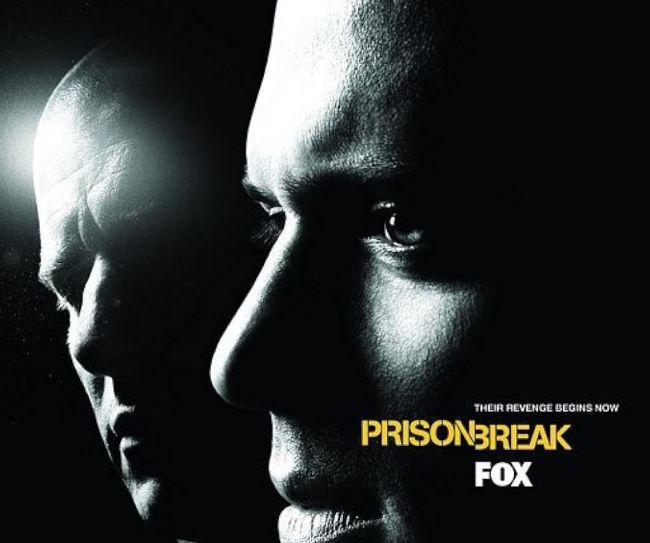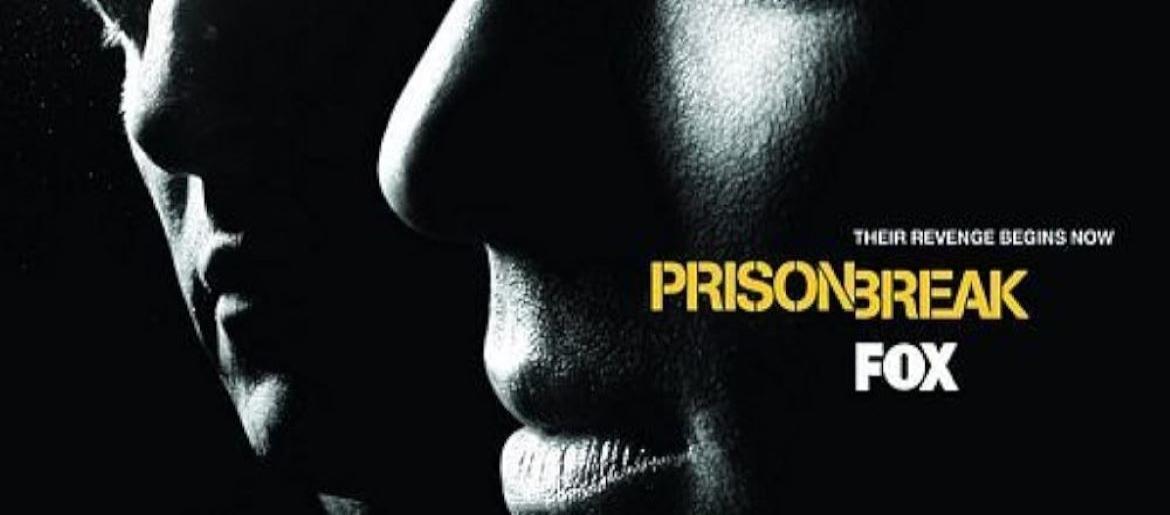
Prison Break Font
The Prison Break font carries a raw, industrial energy that mirrors the series’ tension-filled atmosphere. Its bold, block-style lettering often looks weathered or stamped, giving the impression of concrete walls, prison gates, and escape plans scribbled in secrecy. Unlike flashy or decorative typefaces, the Prison Break font feels grounded and utilitarian, reflecting the gritty reality of life behind bars. It’s the kind of font that communicates urgency, resilience, and a constant fight for freedom.
For designers, the Prison Break font works perfectly in projects that need to channel suspense, toughness, or rebellion. Its rugged look makes it ideal for posters, thriller-themed graphics, or anything aiming to capture the feeling of confinement and struggle. The Prison Break font doesn’t just present a title—it sets the stage for a story of risk and determination.
About Prison Break
Prison Break is a television series that premiered in 2005. It follows Michael Scofield, who devises an ingenious plan to break his brother Lincoln out of a maximum-security prison after he is wrongfully sentenced to death. Combining suspense, action, and clever plotting, the series explores themes of loyalty, resilience, and the fight for freedom. Much like the Prison Break font, the show delivers bold, gripping, and unforgettable storytelling.